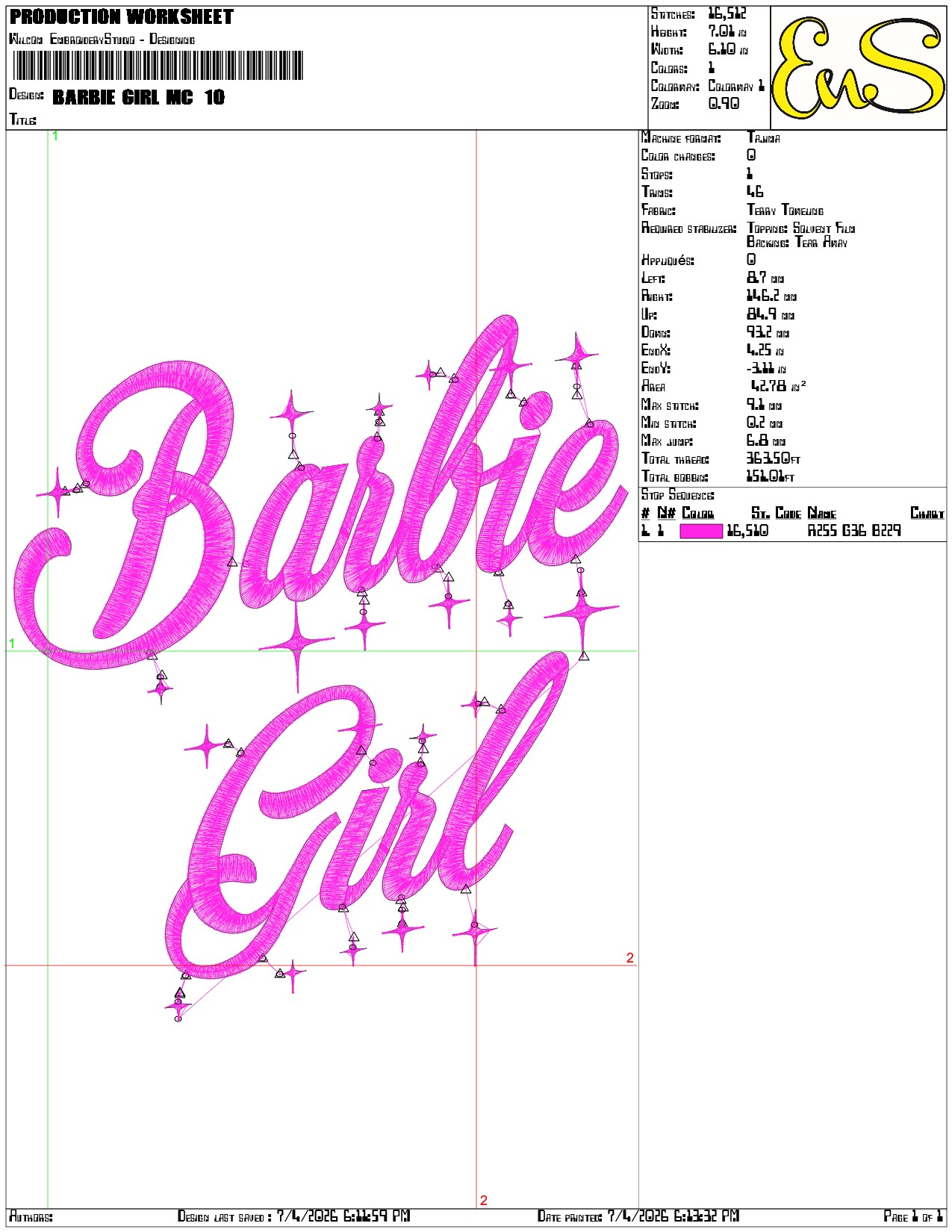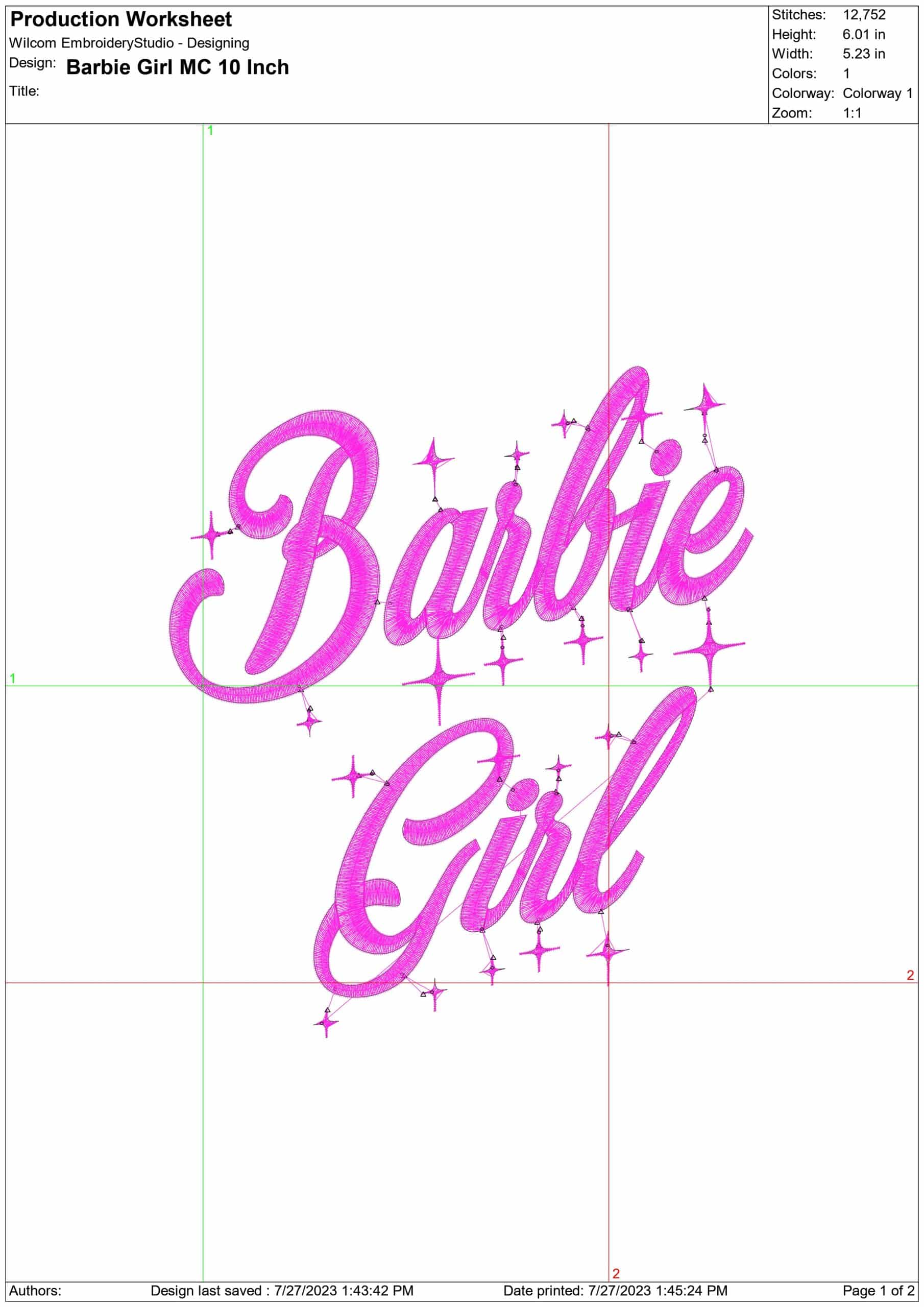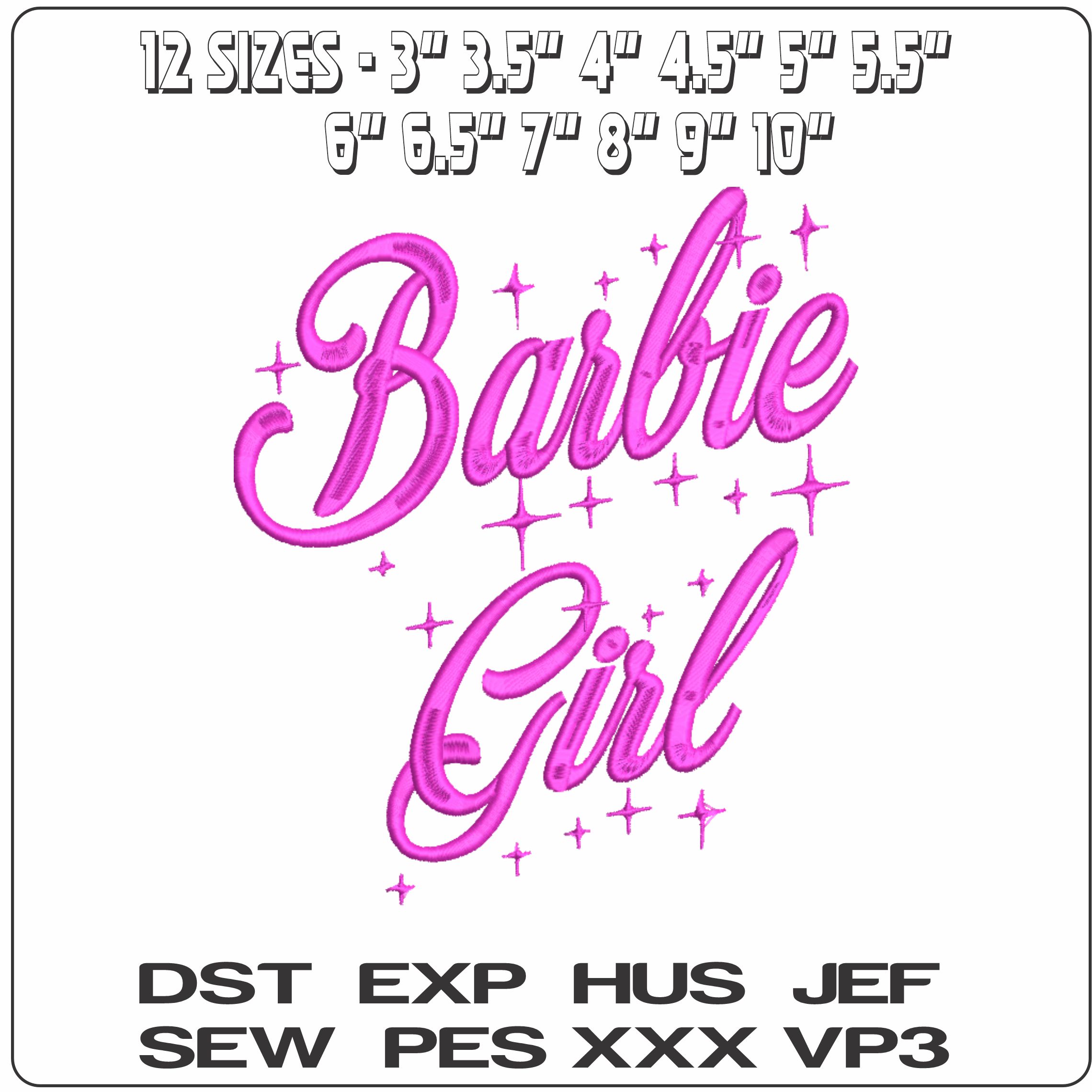
Pink Barbie Girl script with twinkling stars brings a playful, glam finish to jackets, totes and bedroom accessories.
Add pink sparkle to a jacket or gift bag with this Barbie Girl text design, stitched in flowing glam script with little stars and twinkles around the words. The phrase stands out clearly, but the extra sparkles stop it feeling flat, giving it that dressed-up, logo-style look that suits Barbie fans, girls' accessories and anyone who likes a playful, feminine finish. It has a sweet, polished feel that works well for children's makes as well as fun pieces for teens and adults.
Because it uses a single thread colour and an open, lightly stitched style, it keeps the lettering airy rather than heavy. That makes it a good choice for cotton tees, hoodies, denim jackets, pyjama bags, zip pouches and cushion covers where you want visible detail without a dense block of stitching. It also scales nicely across different projects, from a small chest placement to a larger statement on the back of a tote or the front of a sweatshirt.